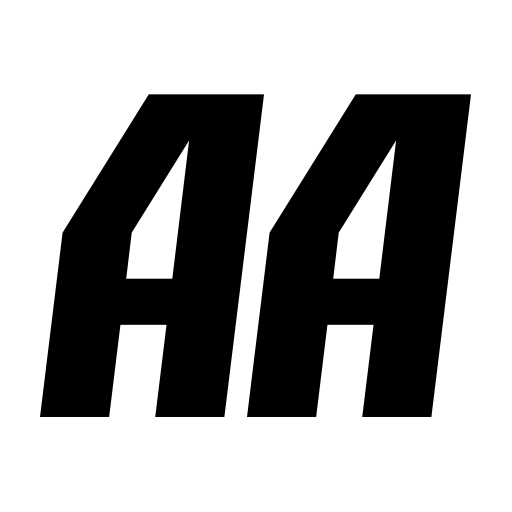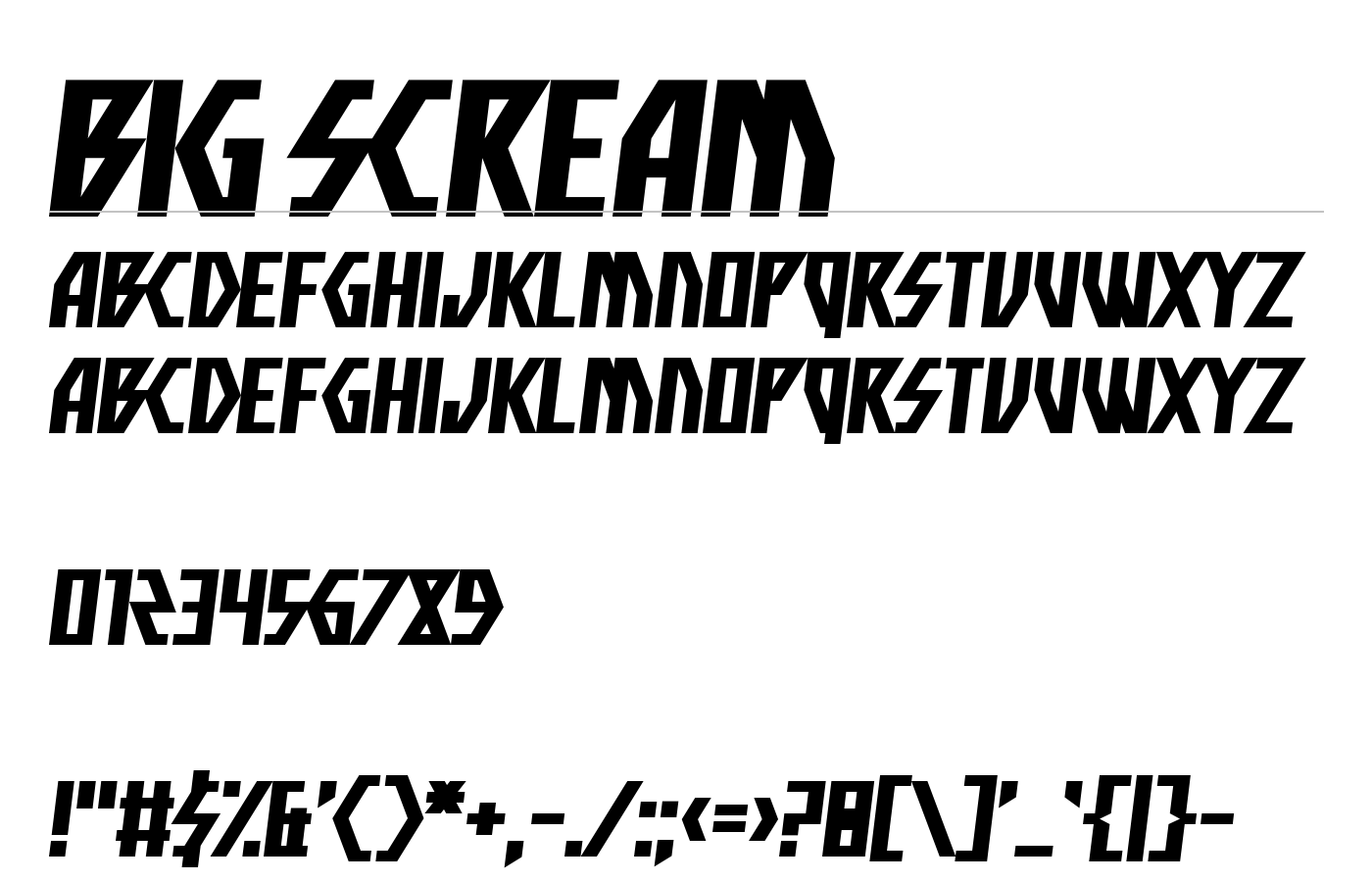
Big Scream is a bold, condensed sans serif font with sharp, angular letterforms that give it a dynamic and aggressive feel. Its tall x-height and high contrast between thick and thin strokes create a striking, modern look ideal for eye-catching headlines and edgy branding. This font works best for impactful designs like posters, logos, and fashion-related projects where a strong, energetic statement is needed.
Big Scream Font
About Big Scream Font
| Font family | Big Scream Font |
| Designer | Allison James |